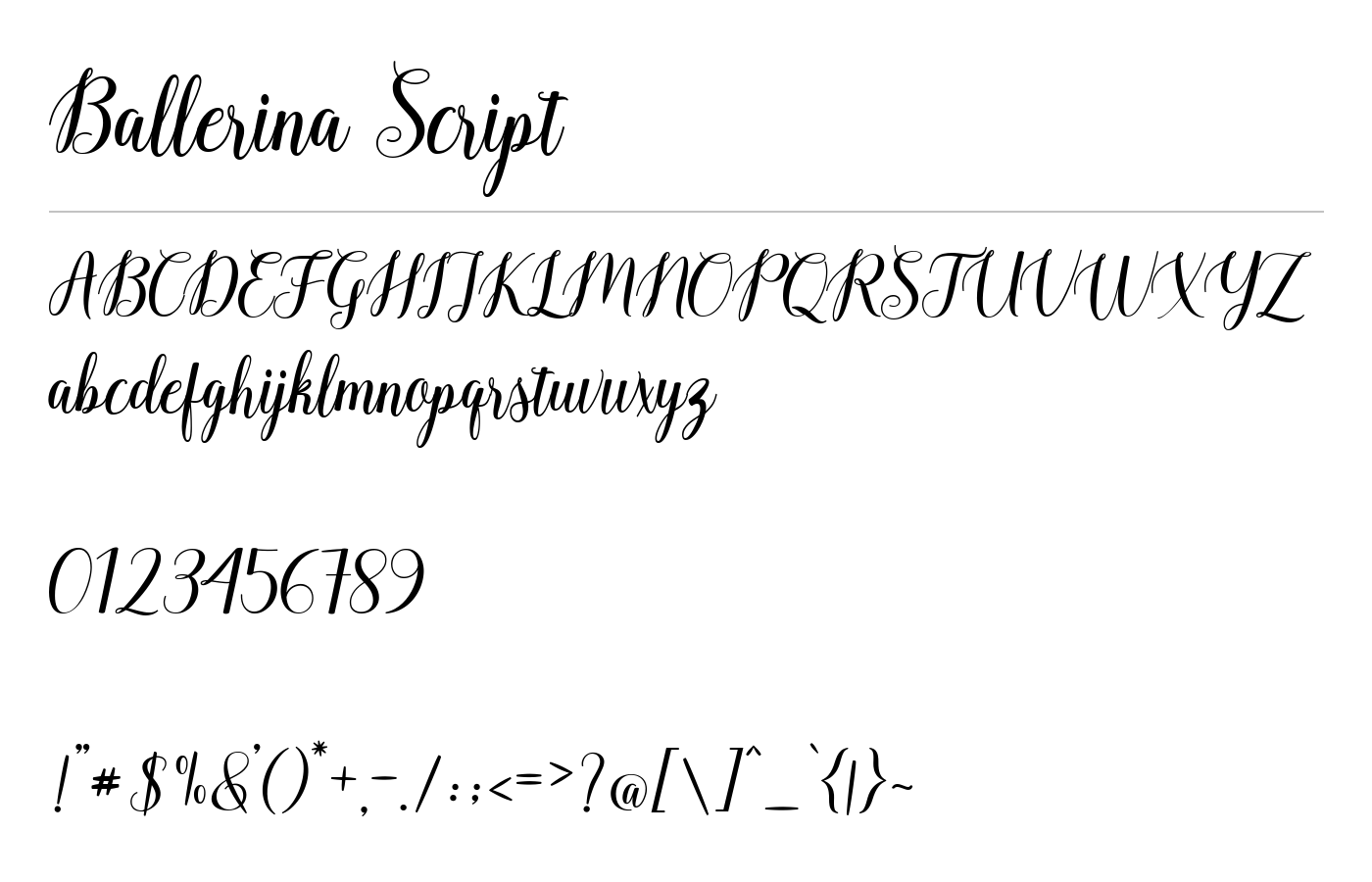
Ballerina Script is an elegant, flowing script font with delicate, high-contrast strokes that mimic graceful handwriting. Its tall, slender letterforms and charming swashes give it a refined, sophisticated personality, making it ideal for luxury branding, invitations, and feminine design projects. This font works beautifully in headlines or logos where a touch of class and artistry is desired.
Ballerina Script Font
About Ballerina Script Font
| Font family | Ballerina Script Font |
| Designer | Ras Type |